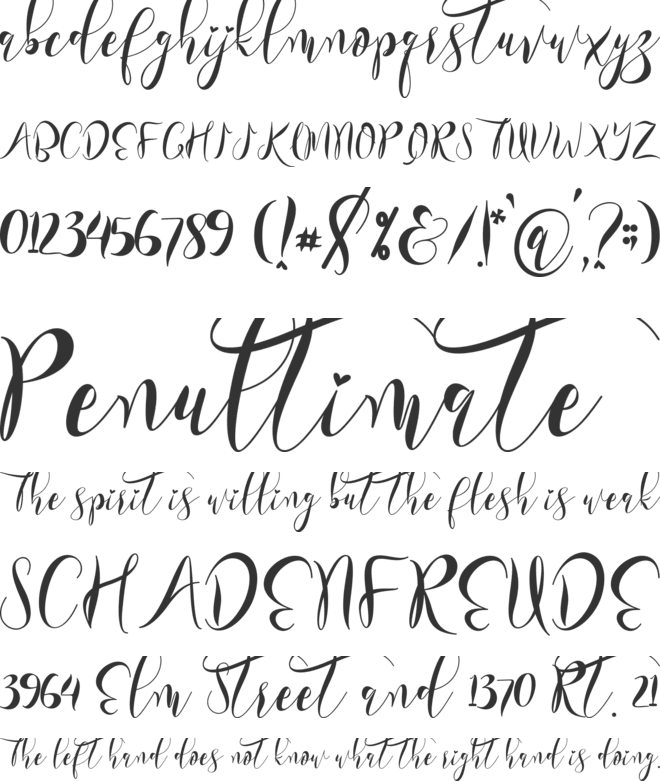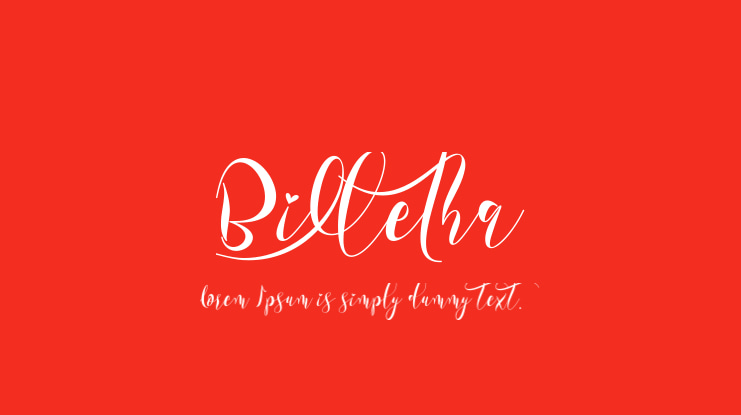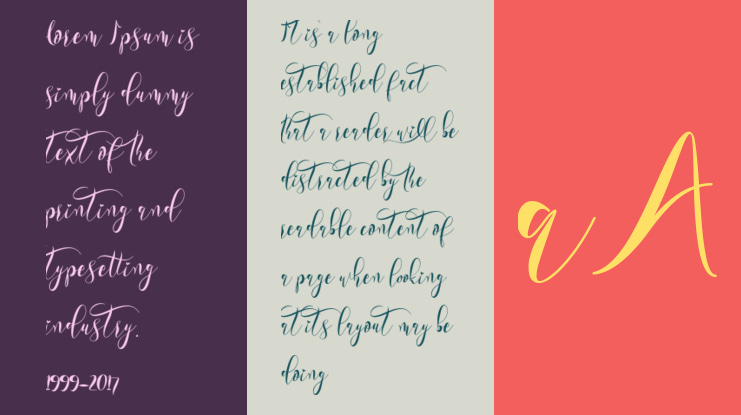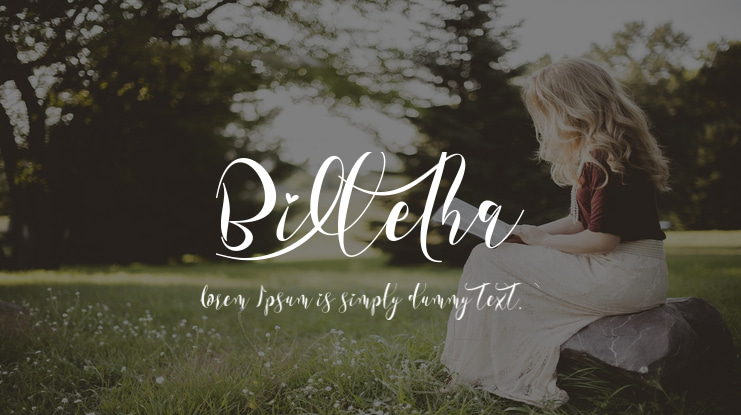
Billetha Font
This font is called Billetha. Billetha is a very elegant, refined, beautiful, and high-quality font. This font is made with great love. This font can make your work more beautiful and elegant. This font is perfect for all wedding needs, marketing your products, marketing all your business, creating quotes, invitation cards, logos, branding, updating on holiday moments, status updates on social media, promotion and more.
Billetha font preview